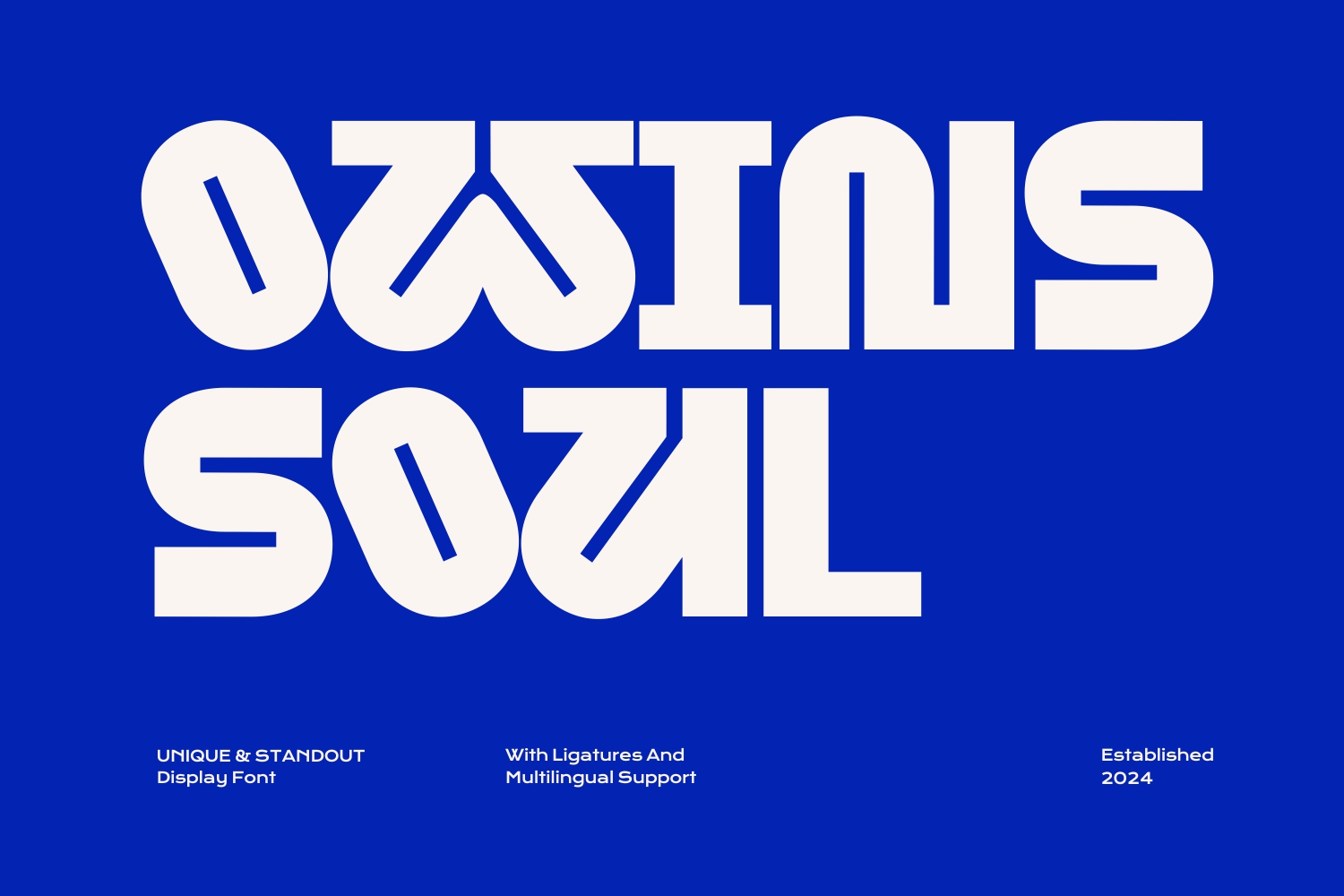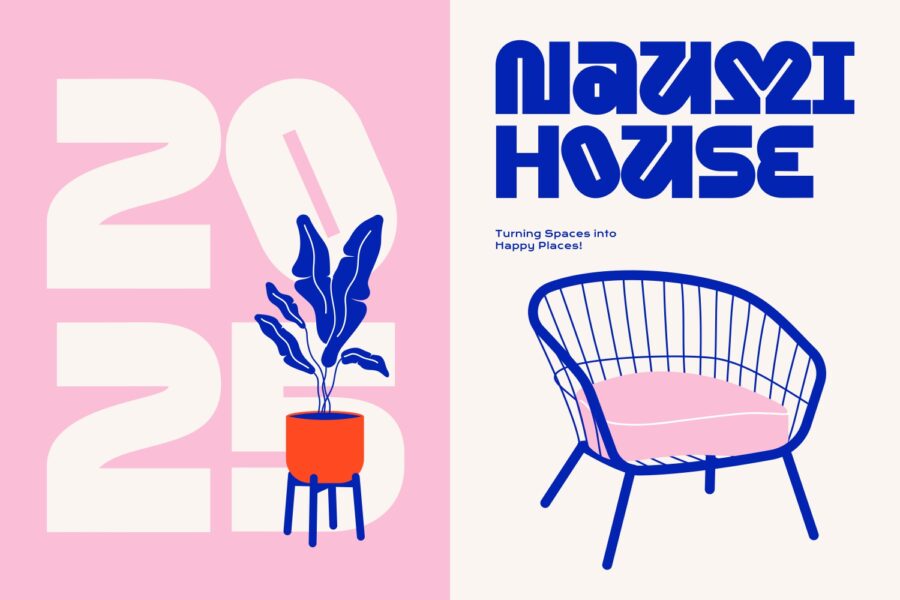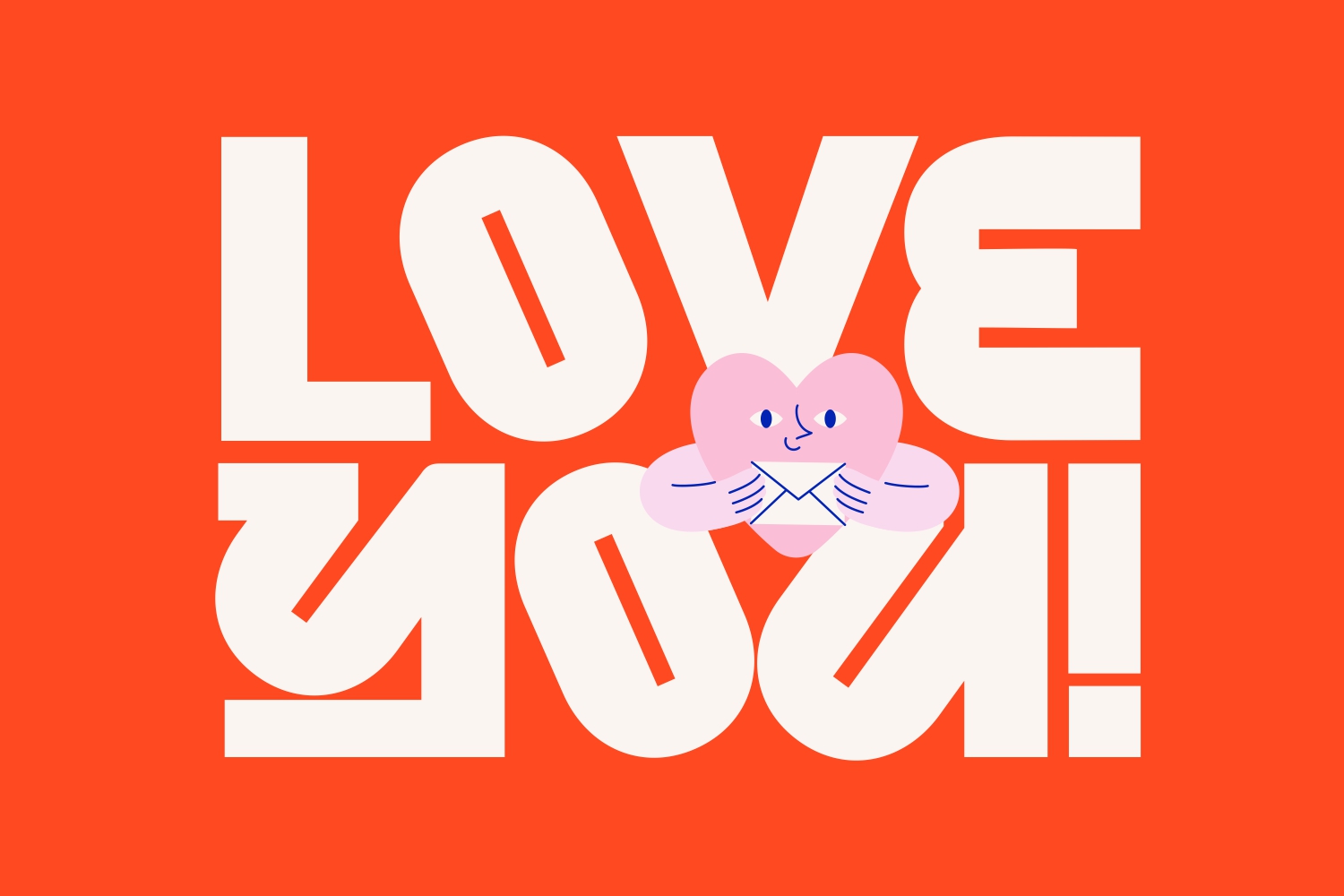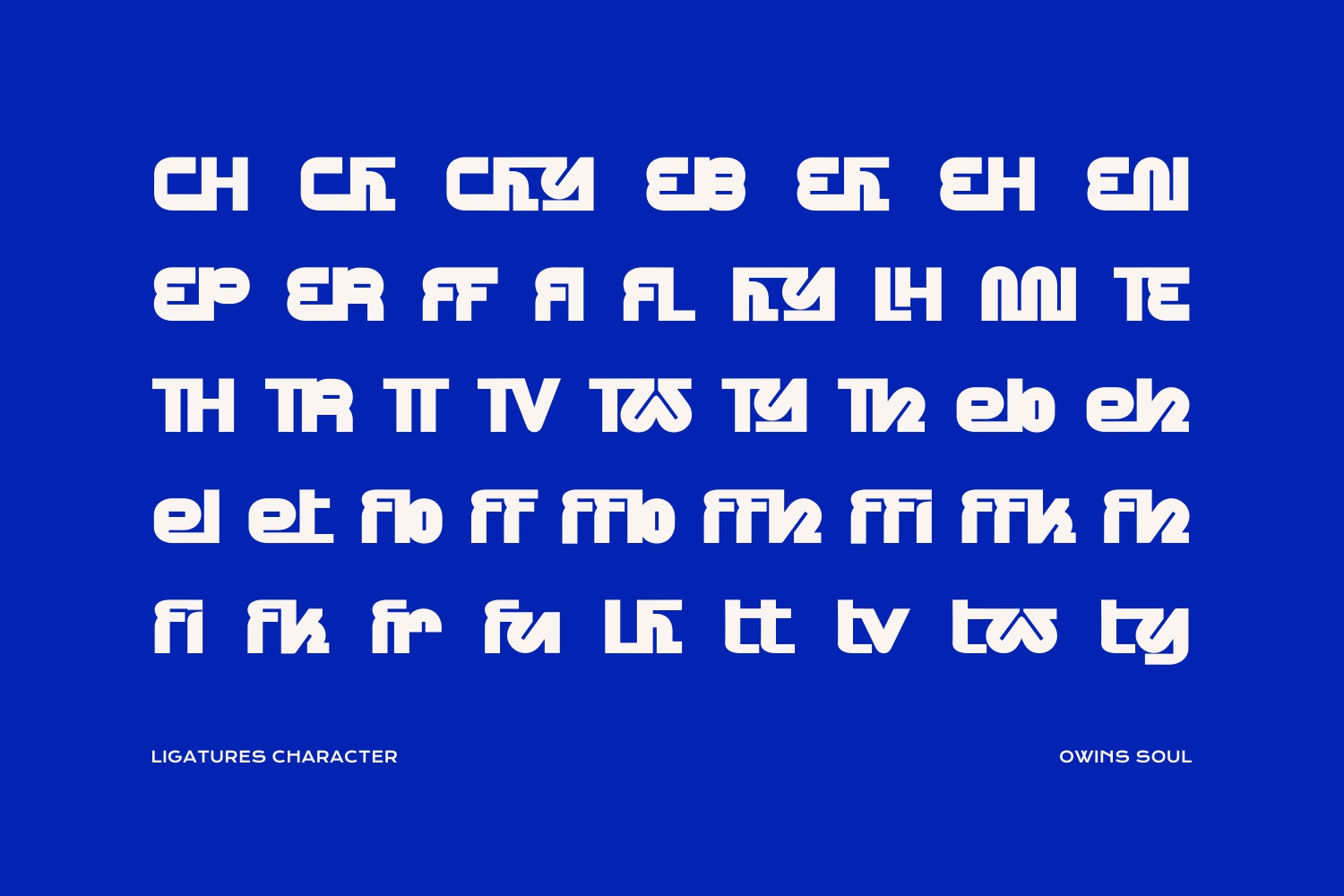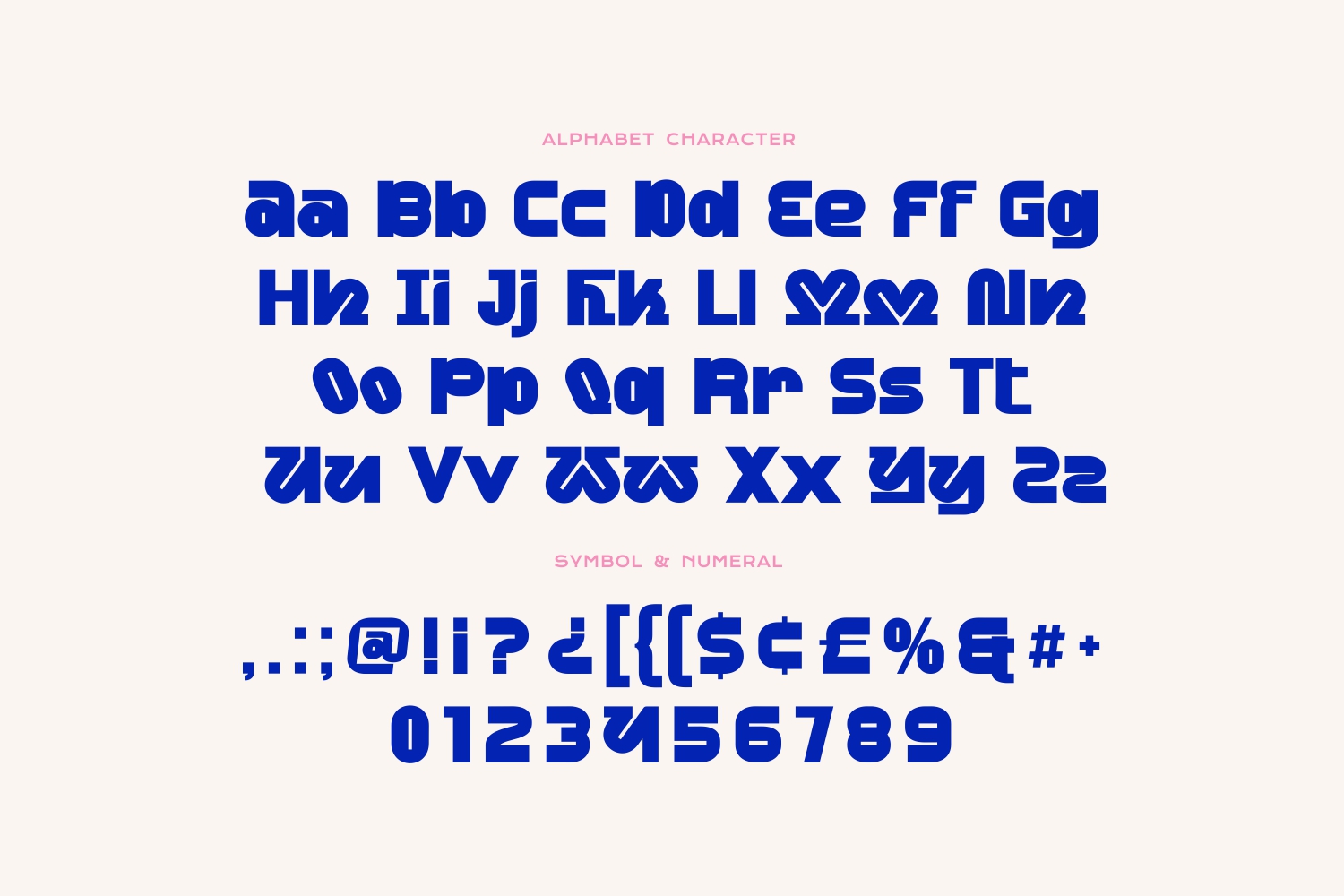
Owins Soul is a bold and unconventional display font that stands out with its striking geometric shapes and artistic ligatures. Its unique letterforms create a strong visual identity, making it perfect for designs that demand attention and creativity. With a modern yet playful aesthetic, this font is ideal for branding, posters, editorial layouts, and eye-catching social media graphics. The dynamic structure of each character ensures that every word looks distinct and memorable.
Equipped with a variety of ligatures and multilingual support, Owins Soul offers versatility for both creative and professional projects. Whether used for stylish headlines, experimental typography, or statement-making product packaging, this font injects personality into any design. Its contemporary curves and bold proportions make it a go-to choice for designers who want to push boundaries and make a visual impact.